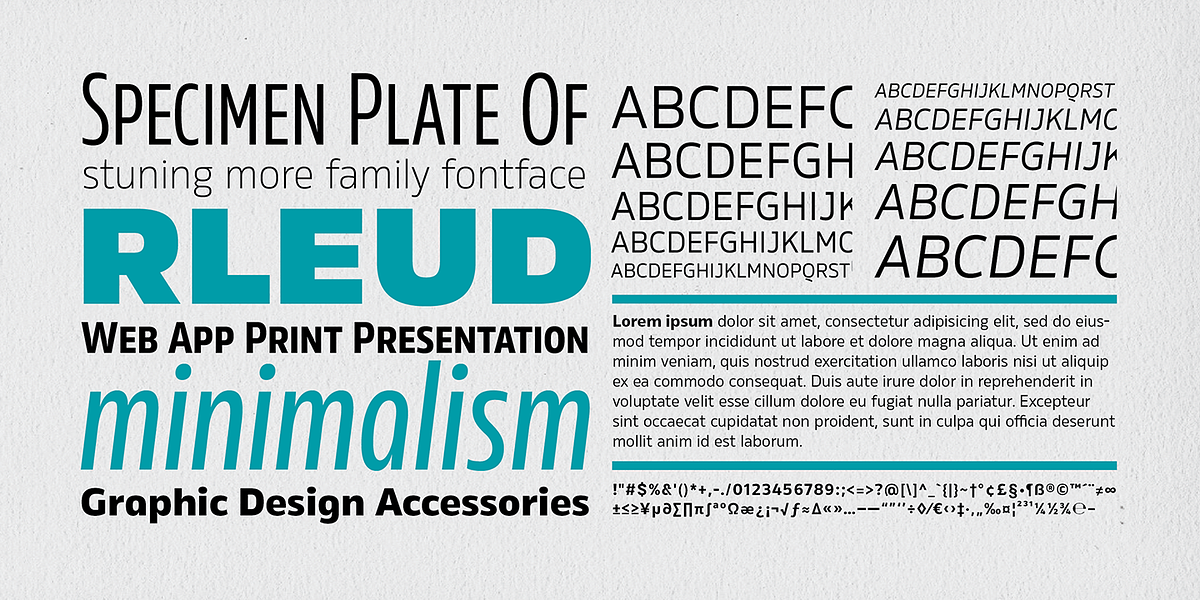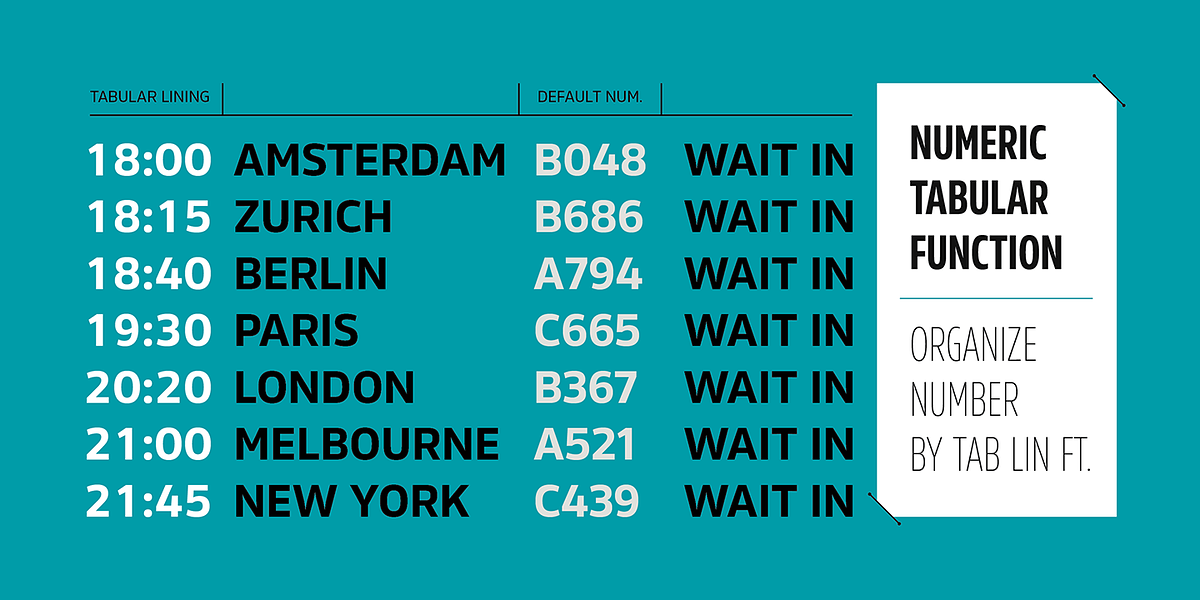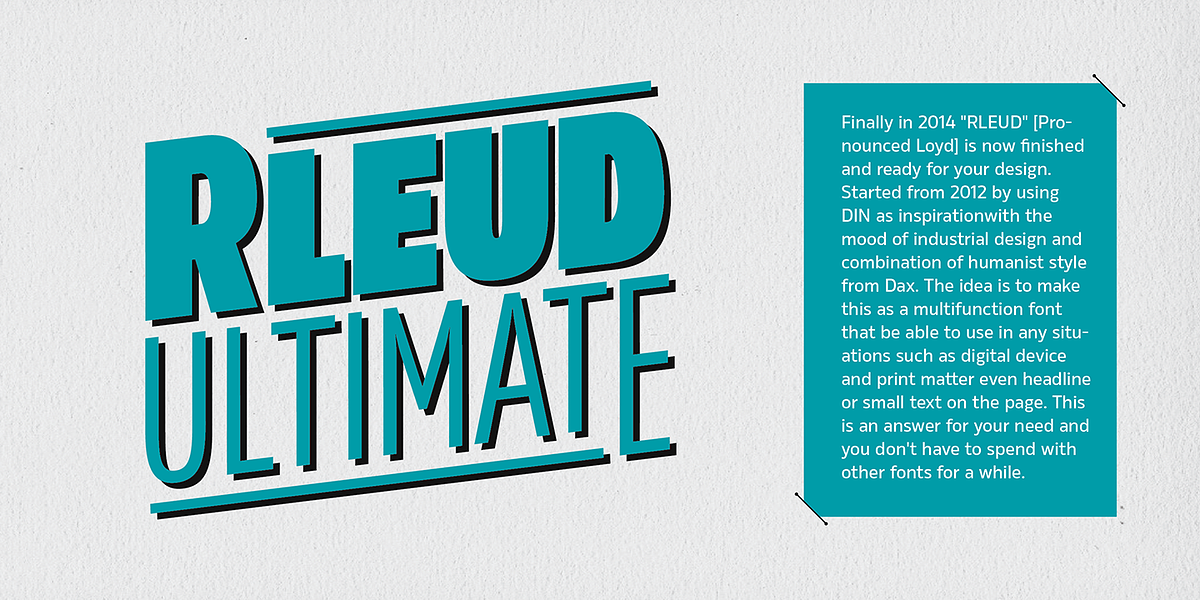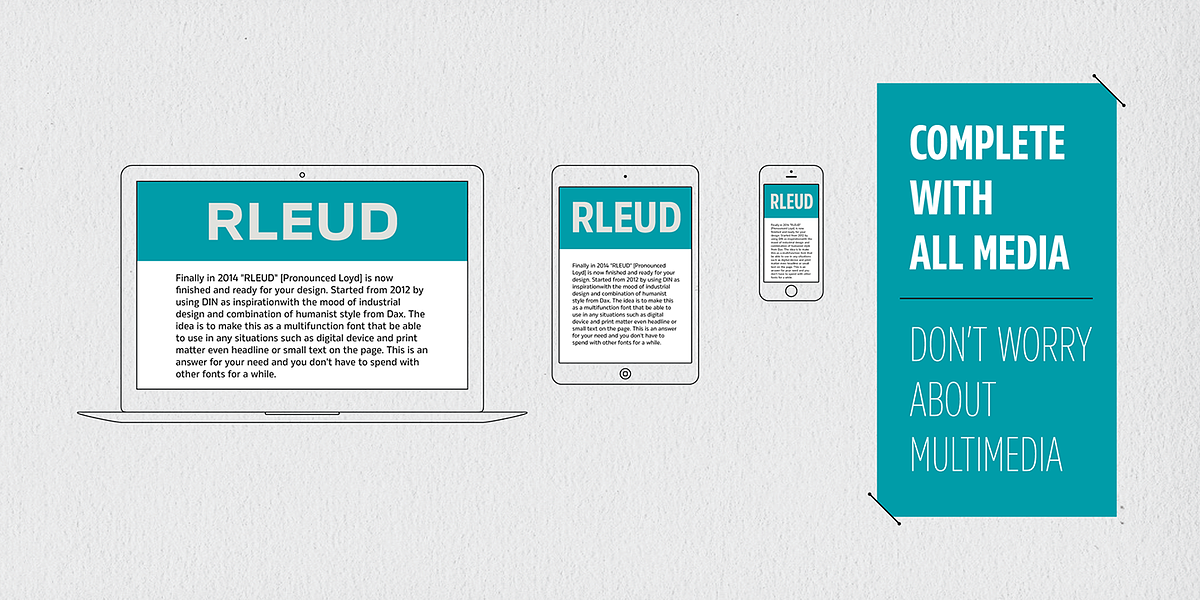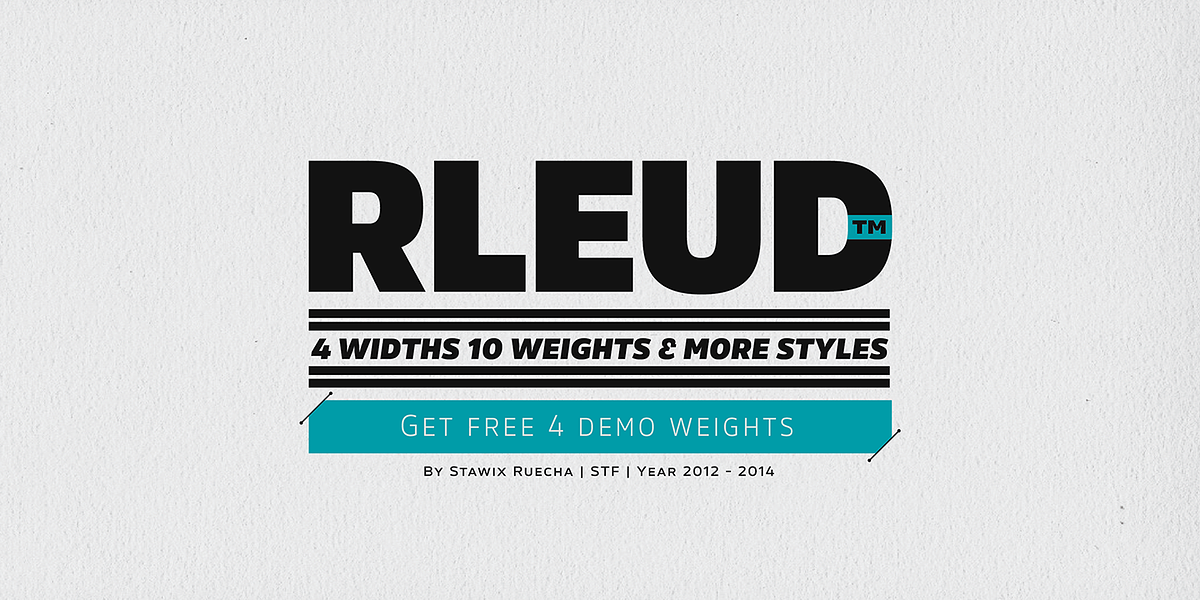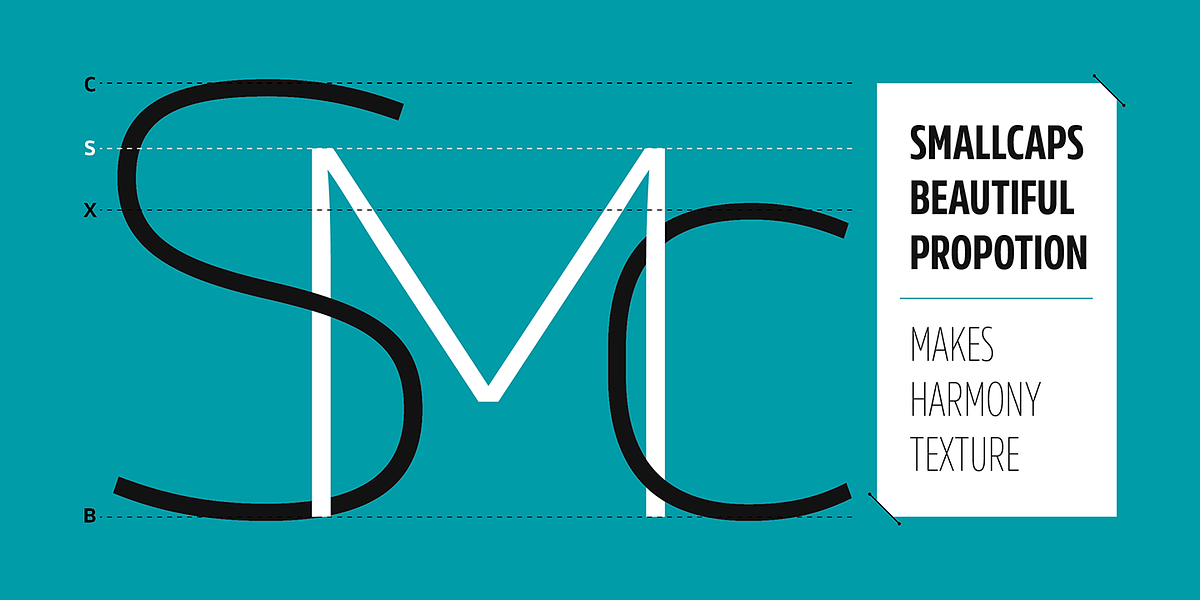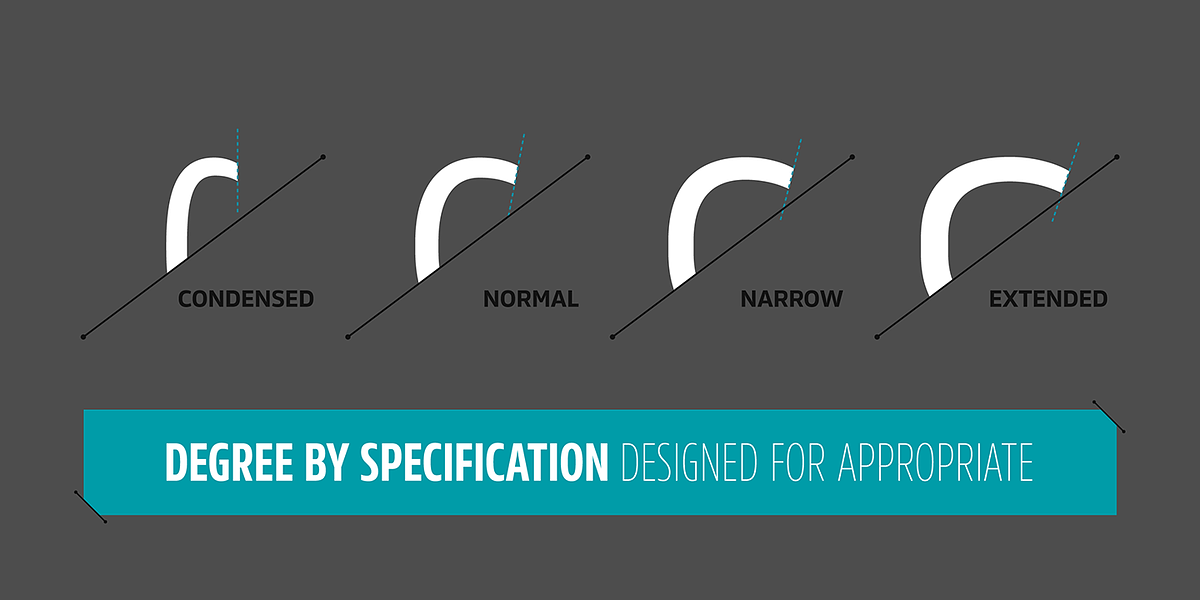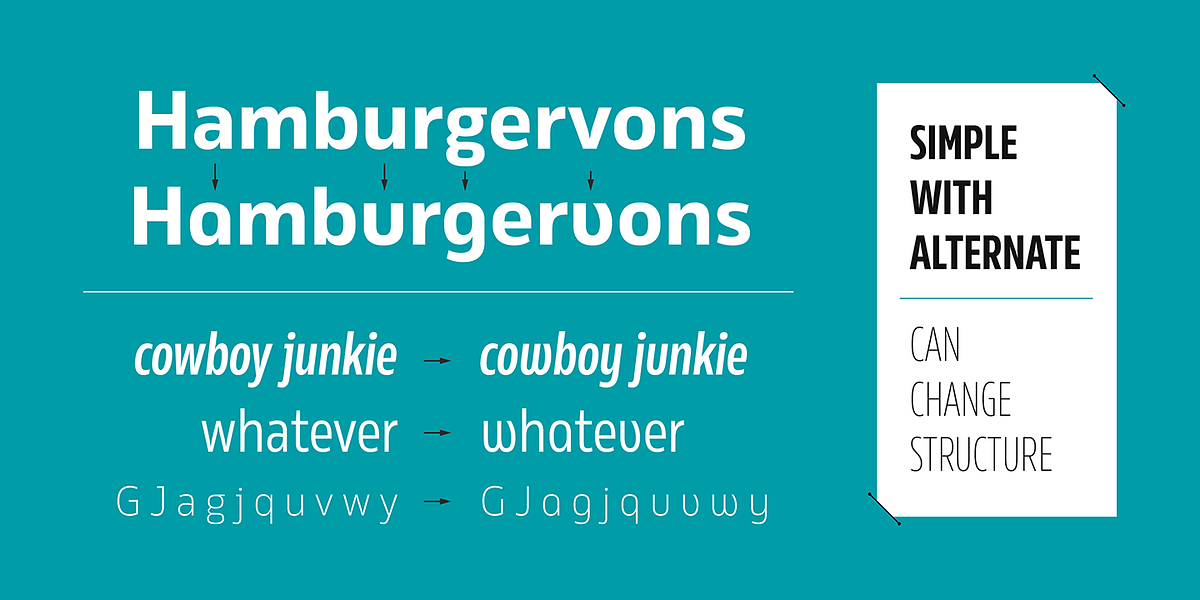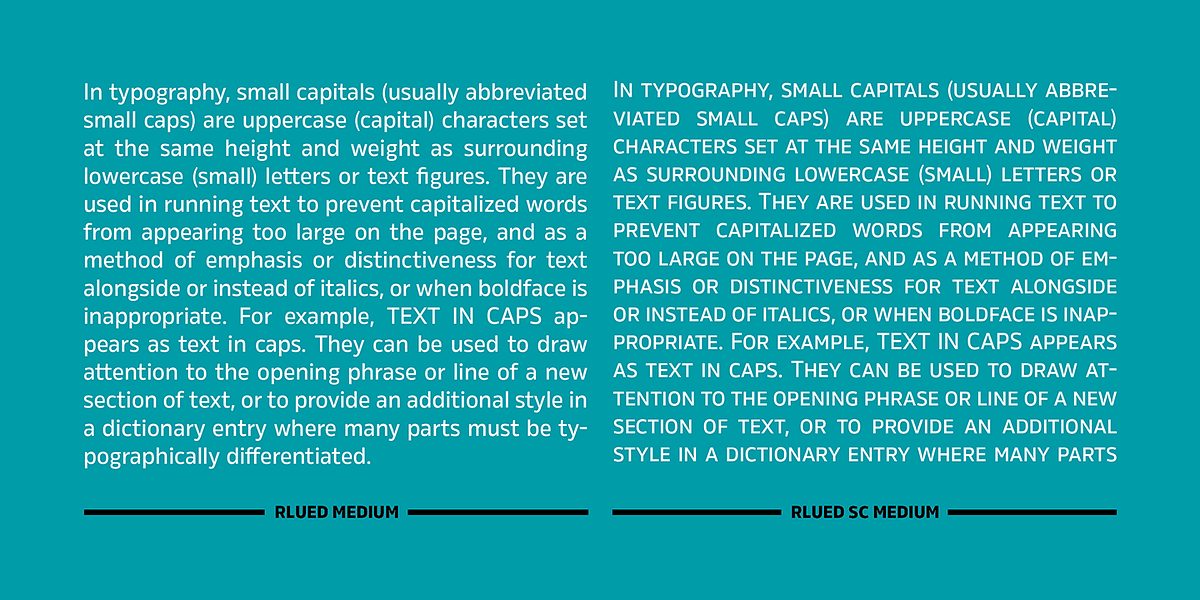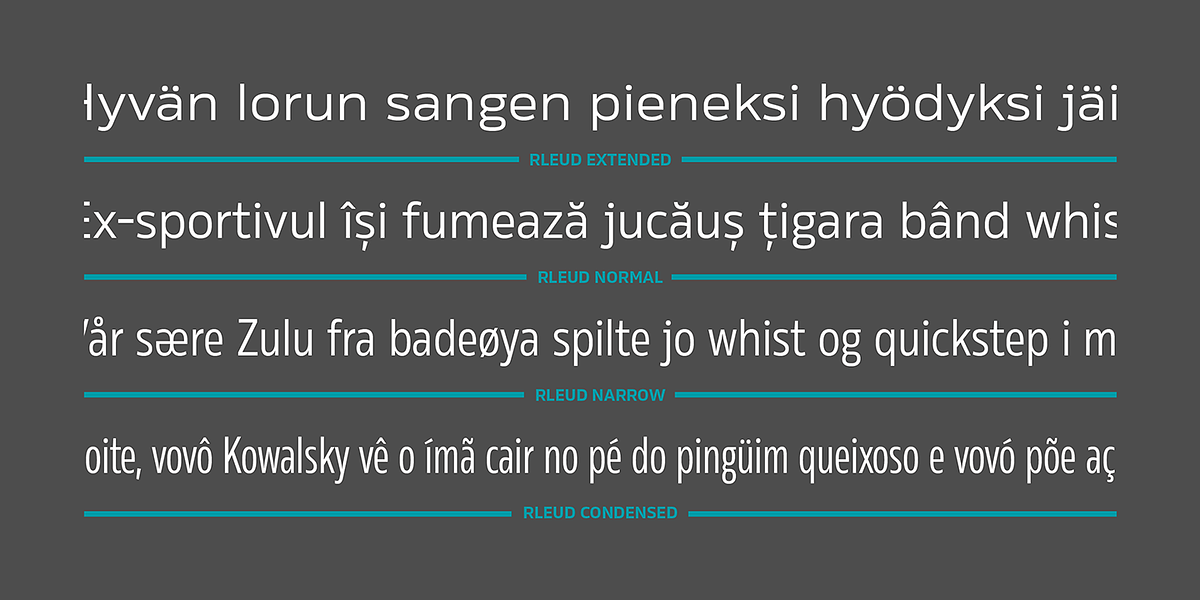
Rleud Extended
RLEUD is a multi-functional grotesque sans serif font family inspired by DIN and incorporating elements of the humanist style found in Dax. It offers 10 weights, each with italics and small caps support, across four widths: normal, condensed, narrow, and extended. OpenType features include alternate letter styles, tabular figures for precise numerical alignment, and additional ligatures. A free demo version featuring four weights is available.